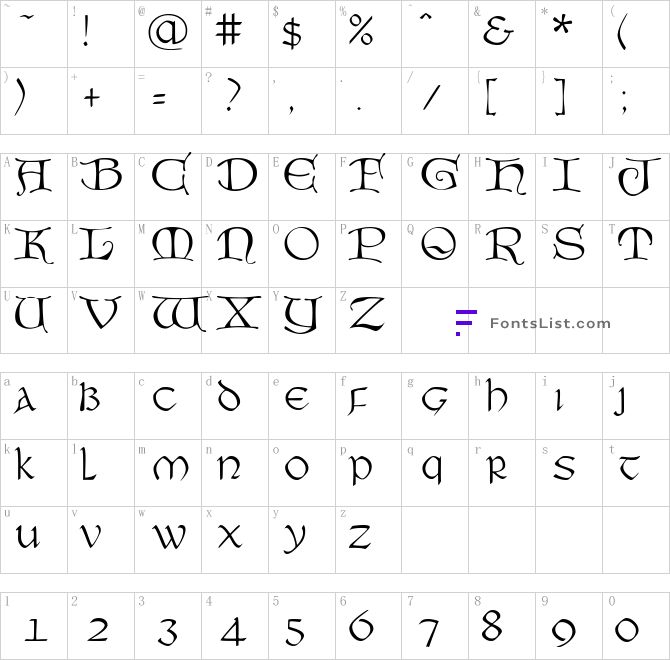
- Font Name:Barbara Svelte
Barbara-Svelte.ttf is a very beautiful artistic font, Barbara-Svelte.ttf is widely used in the design and printing of various books and pictures,Barbara-Svelte.ttf has a strong visual impact,Barbara-Svelte.ttf is a commonly used font in newspapers, magazines and books, and is used in posters, e-commerce Poster design, store design, logo design, font design and other fields.Barbara-Svelte.